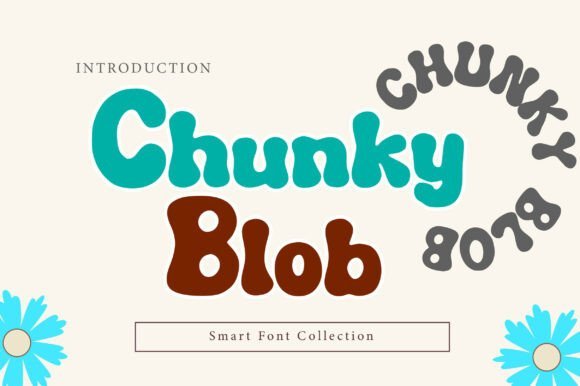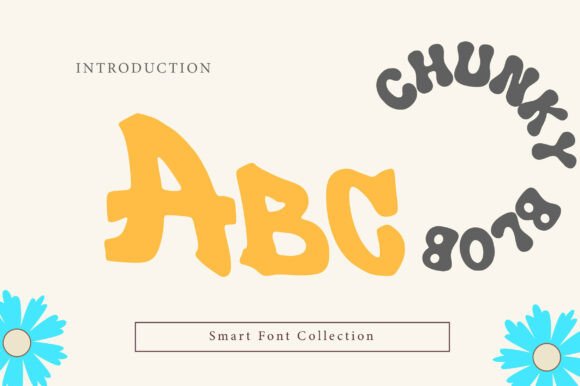
Getting Your Creative Groove On
Remember that moment when you’re brainstorming a new design project and you just can’t seem to find the right font to capture the perfect vibe? You scroll through font libraries, searching for something that’s playful, fun, and attention-grabbing. That’s where the magic of the Chunky Blob Font comes in – a bold, bouncy display font that’s guaranteed to add a smile to your design.
This font is a masterclass in whimsy, with thick, rounded shapes and a soft, “melty” blob-like feel that’s simply irresistible. Whether you’re working on a retro-inspired poster, a colorful kids’ product, or a fun title design, the Chunky Blob Font is the perfect choice to bring some joy and personality to your project.
Chunky Blob Font Key Features
- Character Set: The font includes a comprehensive set of characters, including uppercase and lowercase letters, numerals, punctuation marks, and special characters, making it suitable for various design applications.
- Unique Characteristics: Chunky Blob Font features a distinctive, playful design with rounded shapes and chunky strokes, making it perfect for creating eye-catching and fun typography in various contexts, such as children’s books, advertising, and editorial design.
- Font Weight and Style: The font includes multiple weights and styles, including bold, italic, and regular, allowing designers to experiment with different looks and moods in their designs.
Designer Review: Chunky Blob Font
I recently had the chance to work with the Chunky Blob Font, and I wanted to share my honest thoughts on this unique font.
- The Chunky Blob Font is undeniably eye-catching. Its bold, rounded shapes make it perfect for creating a playful and whimsical atmosphere in any design.
- It’s incredibly versatile and can be used in a wide range of applications, from children’s books to advertising materials.
- The font is well-suited for headings and titles, as it grabs the viewer’s attention and draws them in.
- The Chunky Blob Font can be a bit overwhelming when used extensively throughout a design. It’s best to use it sparingly to avoid visual fatigue.
- The font may not be the best choice for body text, as it can be difficult to read in long blocks of text.
- It’s not ideal for formal or professional designs, as its playful nature may not be suitable for such contexts.
Overall, I think the Chunky Blob Font is a great addition to any designer’s toolkit. While it has its limitations, it’s a fantastic choice for creating a fun and engaging atmosphere in your designs.